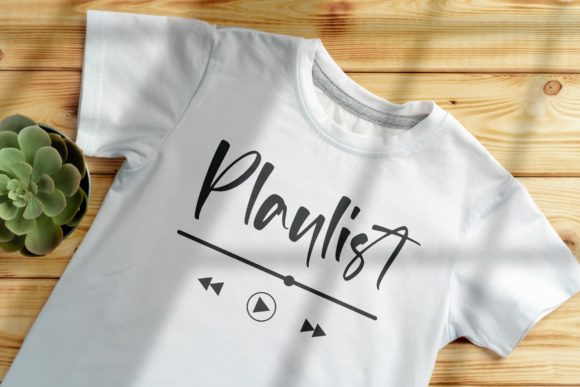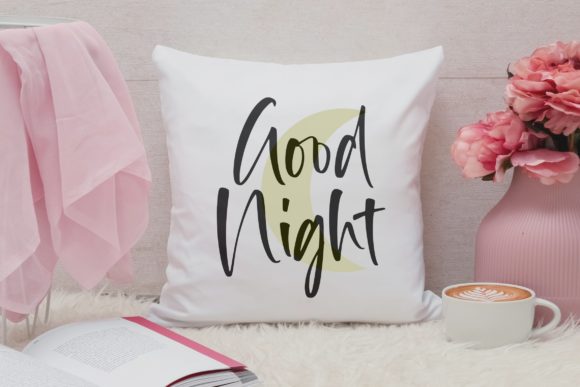
Goliath Soldier Font
db-ku.com - Script & Handwritten -- Goliath Soldier feels equally charming and chic. It looks fun on wedding invitations, thank you cards, quotes, greeting cards, logos, business cards and every other design which needs a customized touch.